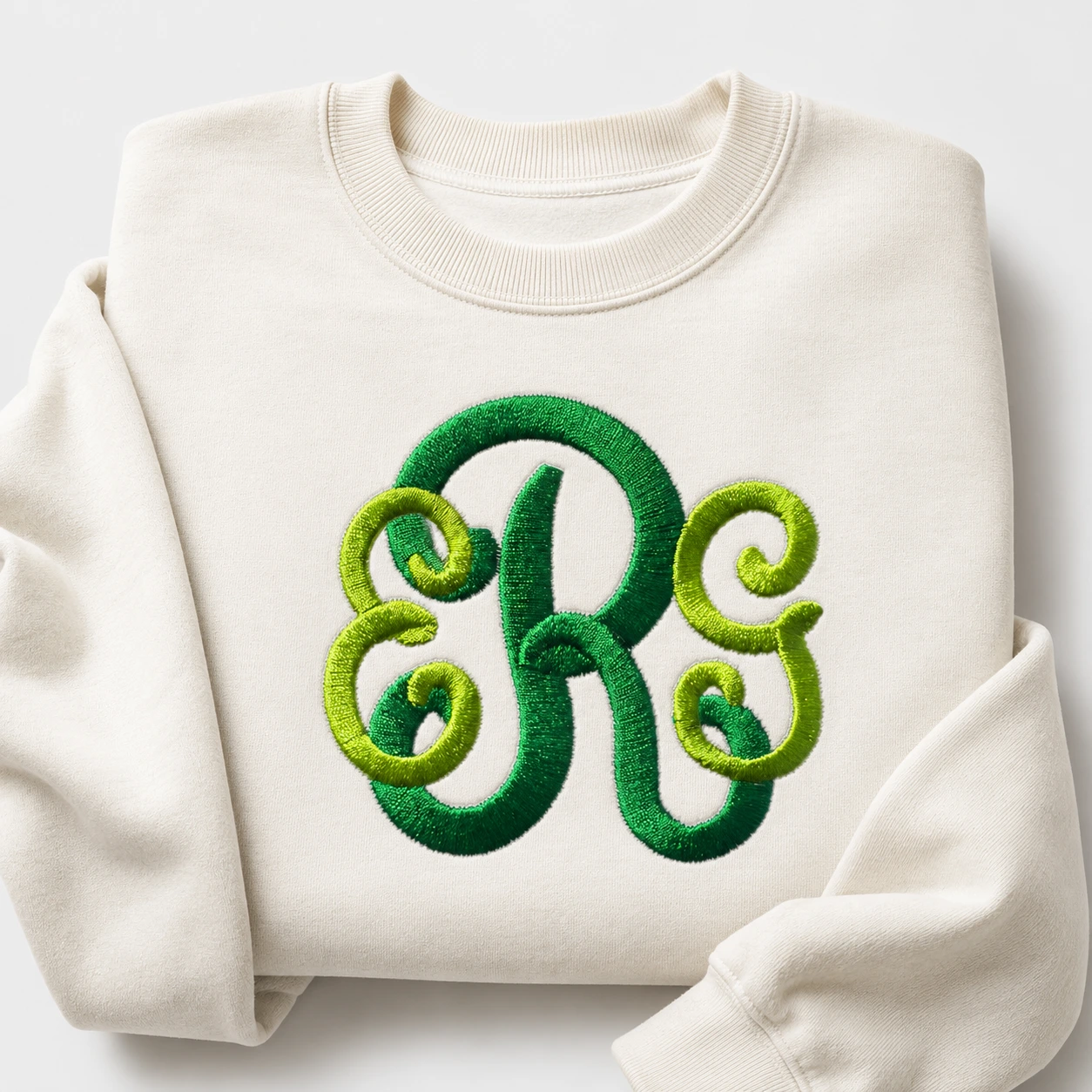
Aloha Embroidery Font
Evoking sun-drenched coastlines, mid-century Polynesian supper clubs, and the golden era of tropical travel, the Aloha Embroidery Font captures the spirited warmth of island hospitality. Digitized with deliberate artistic flair, this playful yet sophisticated satin stitch alphabet transforms retro tiki sign-painting traditions into an exquisite embroidery motif. Each letterform pulses with nostalgic charm, ready to impart effortless wanderlust and bespoke character to seaside textiles and summer resort wear.
Aloha Embroidery Font Craft & Letterform Details
Translating vintage, hand-carved Polynesian typography into miniature machine embroidery requires an exacting touch. The letterforms feature distinctive flared terminals, sculpted waistlines, and rhythmic weight variations reminiscent of authentic tropical hand-lettering. Because miniature satin columns can easily distort or sink into textured weaves, each character is digitized with precision-engineered travelling stitches and tailored underlays that anchor the fabric grain without adding stiffness. The satin pathing transitions smoothly across sharp directional changes, ensuring lustrous sheen and razor-sharp legibility even at the delicate half-inch scale.